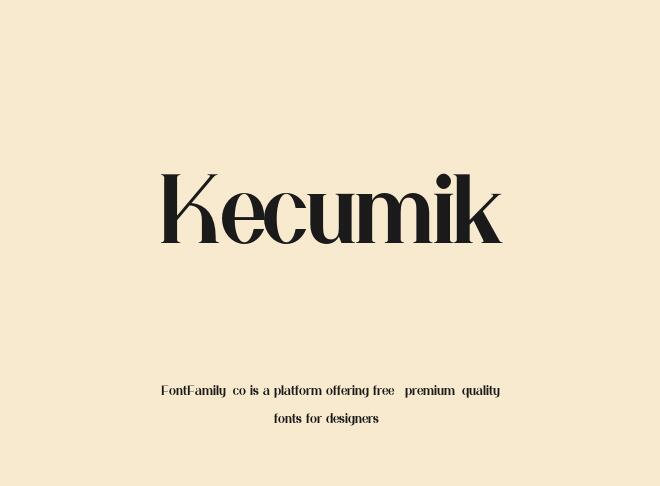
Kecumik Font
Kecumik Font, a creation of the Creative Type Foundry, is a modern and geometric display typeface released in 2020. This font features a unique blend of sharp angles, clean lines, and creative character design, making it an excellent choice for a variety of design projects. Its modern and geometric style is reminiscent of the future-forward design, drawing comparisons to the Futura and Proxima Nova typefaces. However, Kecumik Font stands out with its unique character and personality. Best suited for header texts, logos, and display usage, this font can add a bold, modern touch to any design. Its Open Font License ensures that it's accessible to a wide range of designers. Choose Kecumik Font to add a modern, geometric flair to your next design project.